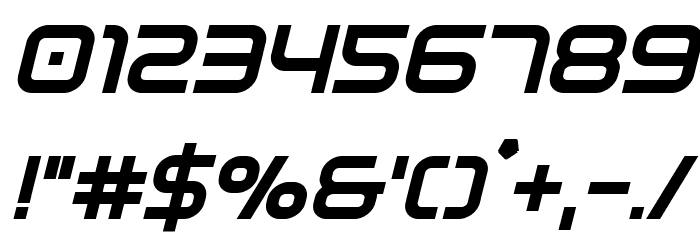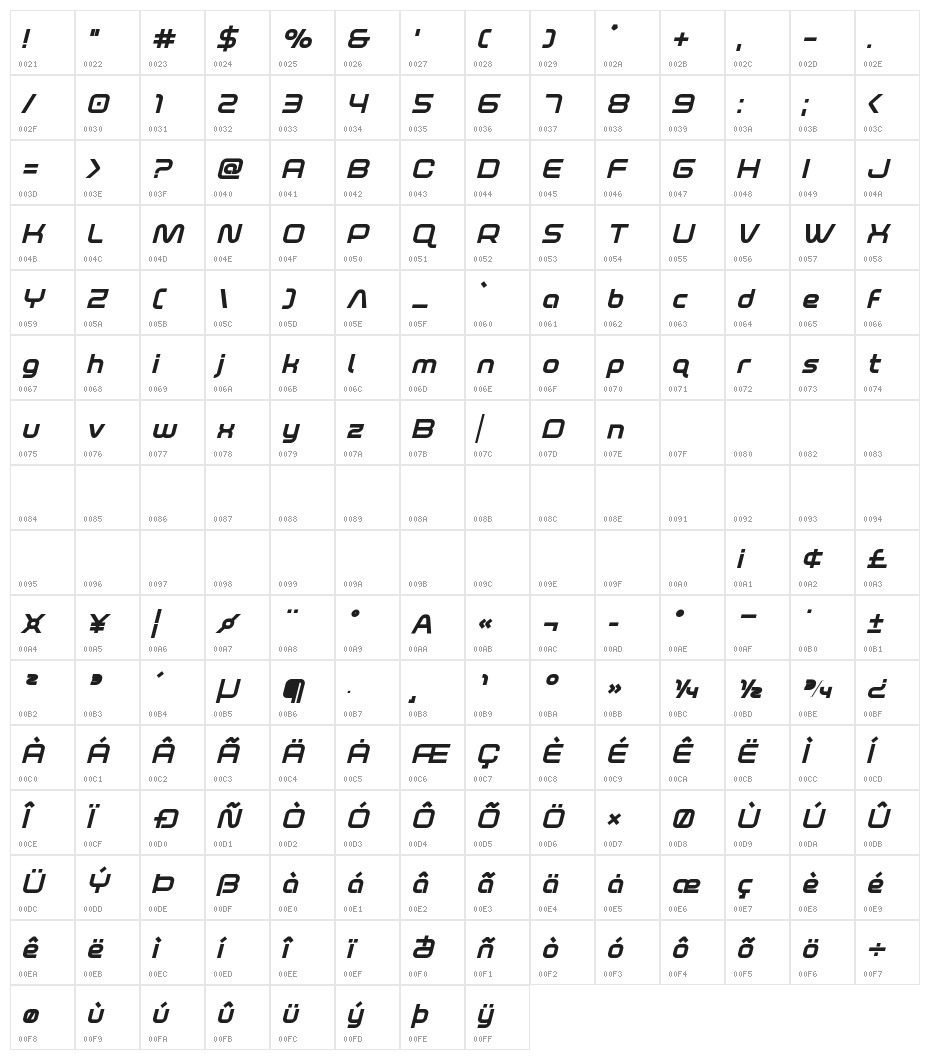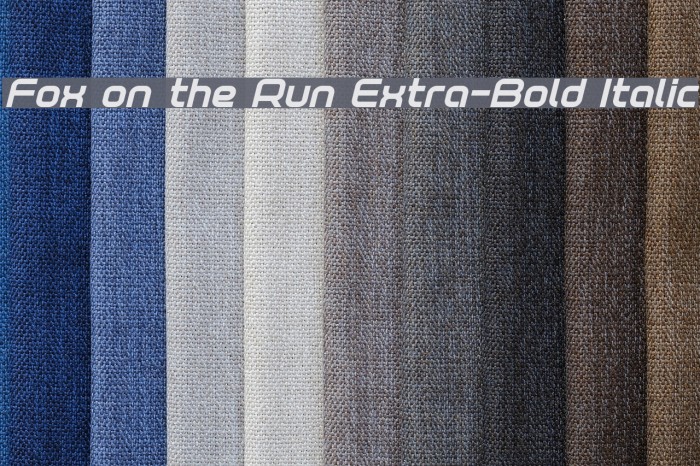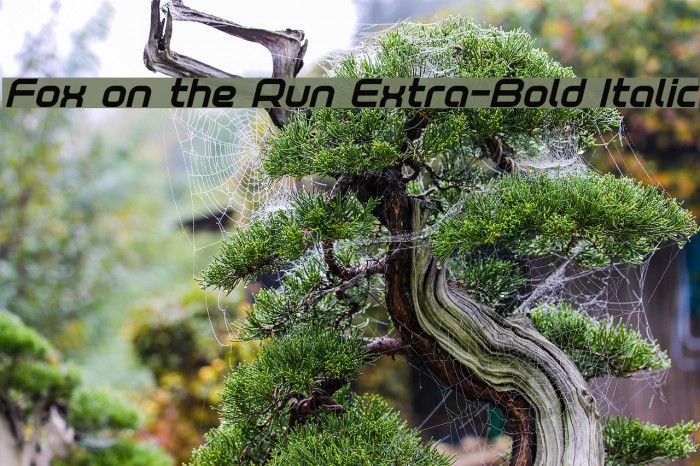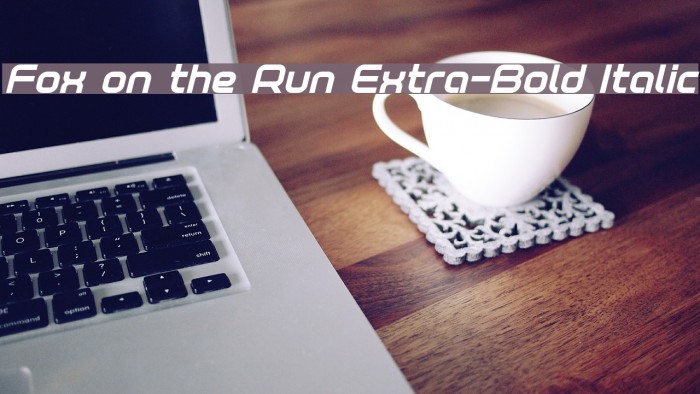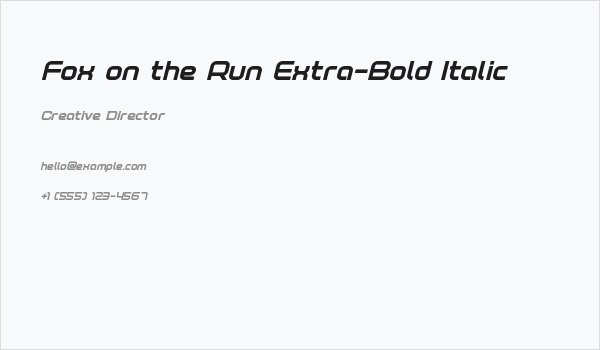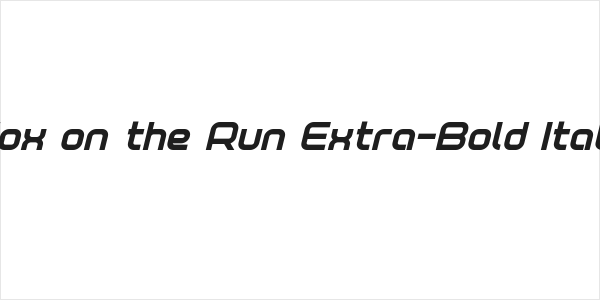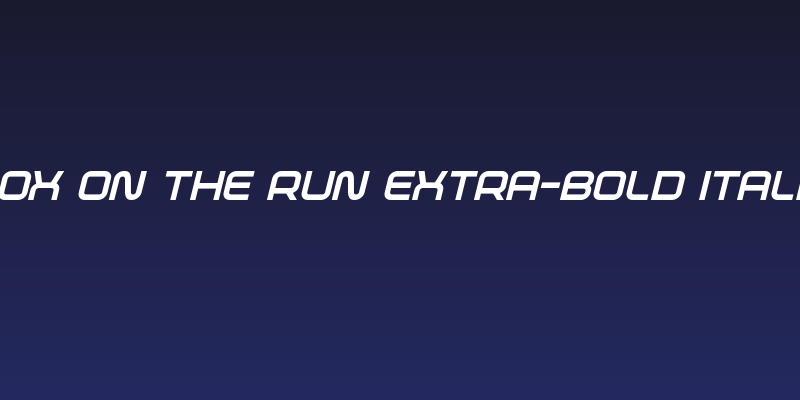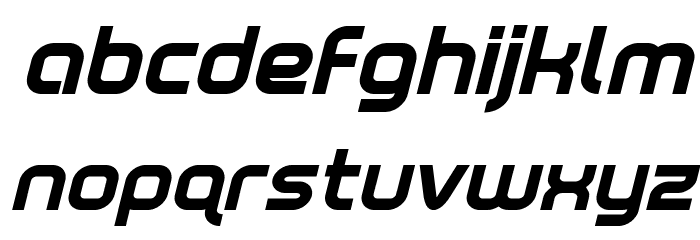
Fox on the Run Extra-Bold Italic Font
Fox on the Run Extra-Bold Italic Description
This font exhibits a dynamic and modern style with a strong emphasis on boldness and italicization. The characters are sleek and slightly condensed, giving them a streamlined appearance. The strokes are consistent and smooth, with a medium contrast that enhances readability while maintaining a stylish flair. The font's italic nature adds a sense of motion and energy, making it suitable for projects that require a contemporary and assertive look. Its geometric shapes and clean lines contribute to its versatility, allowing it to be used in various design contexts.